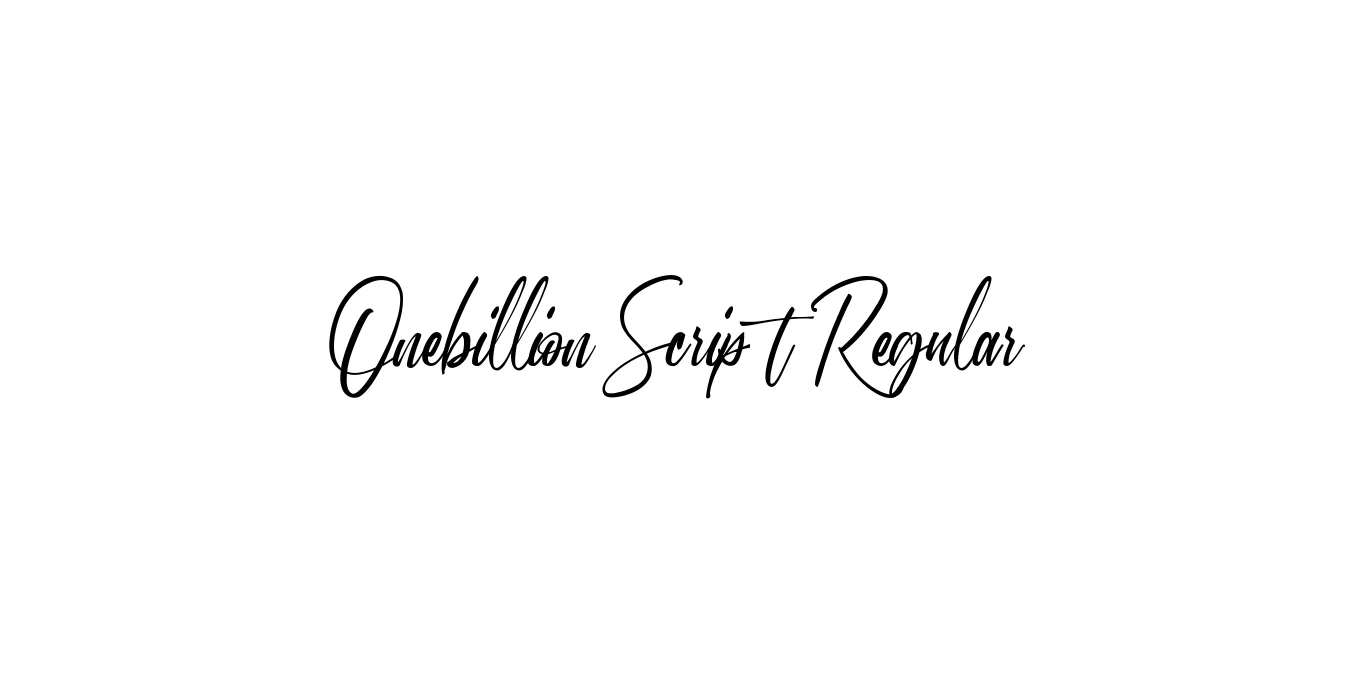
Onebillion Script Regular
Onebillion Script Regular is a sophisticated and fluid calligraphy font designed to emulate the natural flow of elegant handwriting. This typeface stands out with its graceful swashes and refined ligatures, making it an ideal choice for projects that require a touch of luxury and personal charm. Its clean yet artistic structure ensures that it remains legible even in complex design layouts, providing a professional finish to any creative endeavor.
The font is particularly effective in high-end contexts such as wedding invitations, brand identities, and editorial headlines. With its extensive character set and stylistic alternates, Onebillion Script Regular allows designers to customize their typography to suit specific aesthetic needs. Whether used for print or digital platforms, this font delivers a timeless appeal that bridges the gap between traditional penmanship and modern graphic design.
Onebillion Script Regular Best Uses
Ideal for creating elegant invitations, RSVP cards, and envelopes.
Perfect for luxury logo designs, boutique identities, and business cards.
Excellent for stylized quotes, Instagram stories, and Pinterest graphics.
Adds a premium and personalized feel to product labels and gift tags.